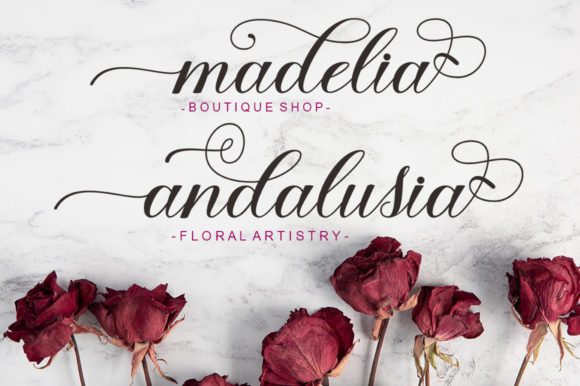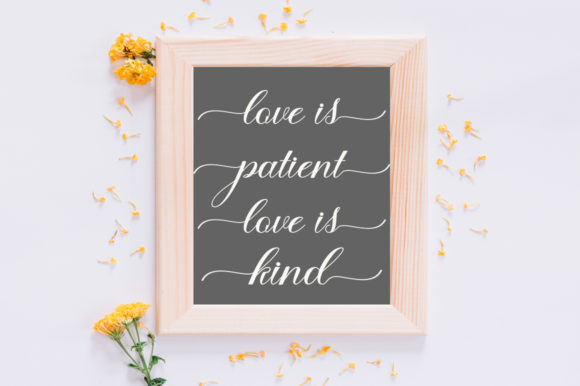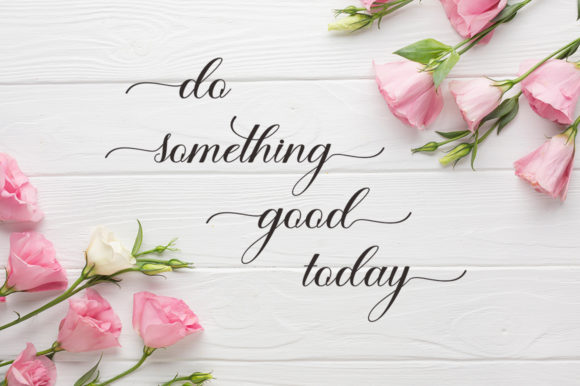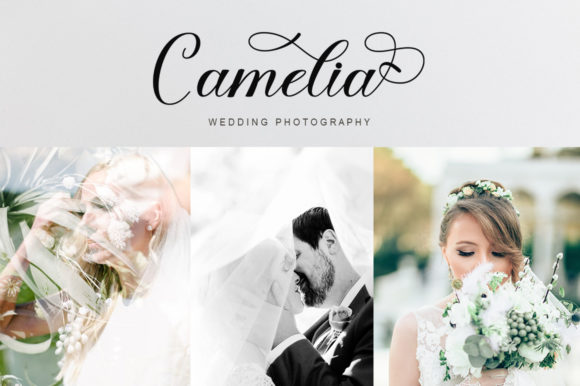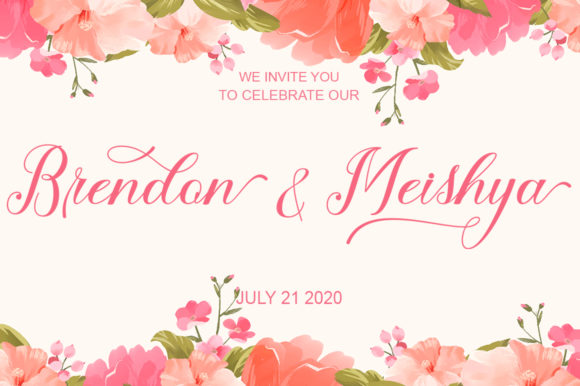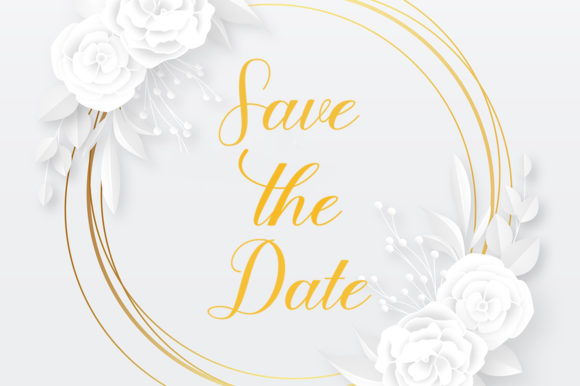
Standey Font
About Standey Font
Little Christmas is a fancy calligraphy font, perfect for adding a cute feel to your crafts! It’s great for branding projects, logo, wedding designs, social media posts, advertisements, product packaging, product designs, labels, photography, watermarks, invitations, stationery and much more!